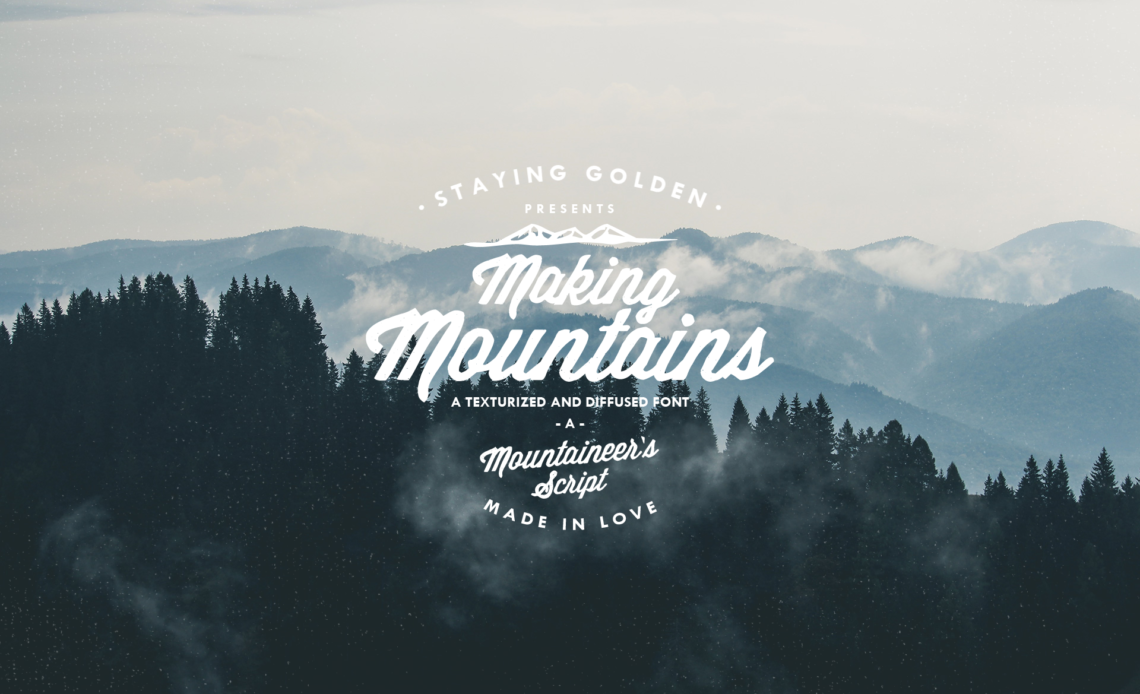
Introducing Making Mountains, a script font that embodies the rugged beauty of towering peaks and the ethereal flow of mountain streams. Created in collaboration with Strange Type, this font is a tapestry of creative expression, fusing a textured and diffused style that captivates the soul.
The Making Mountains font dances across the page with the grace of a mountain stream, its characters flowing into each other like rivulets of water cascading down a rocky slope. Its organic shapes and subtle imperfections create a sense of realism, as if each letter has been chiseled from the very heart of the mountain range.
With Making Mountains, your designs will ascend to new heights. Craft logos that evoke the majesty of nature, branding that resonates with the spirit of adventure, and social media posts that capture the essence of the great outdoors. Let your words take on a new dimension, as if they've been whispered by the wind and etched into the sides of mountains.
This font isn't just a collection of letters; it's an artistic journey that invites you to explore the untamed beauty of nature through the medium of typography. It's a font that will inspire you, challenge you, and ignite a creative fire within you.
So, embark on this typographic expedition with Making Mountains. Let your designs soar like eagles, navigate the rugged terrains of creativity, and leave an indelible mark on the world of visual communication. Embrace the spirit of the mountains and unleash the boundless possibilities that await you.